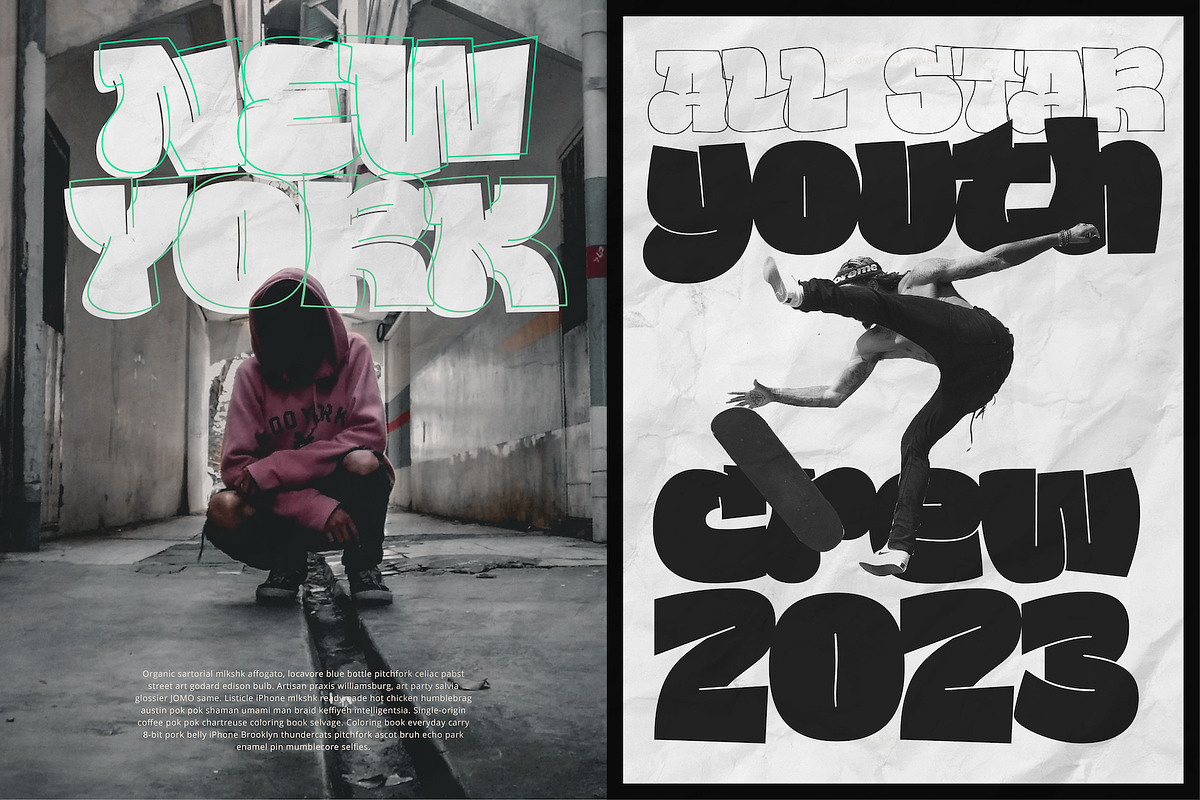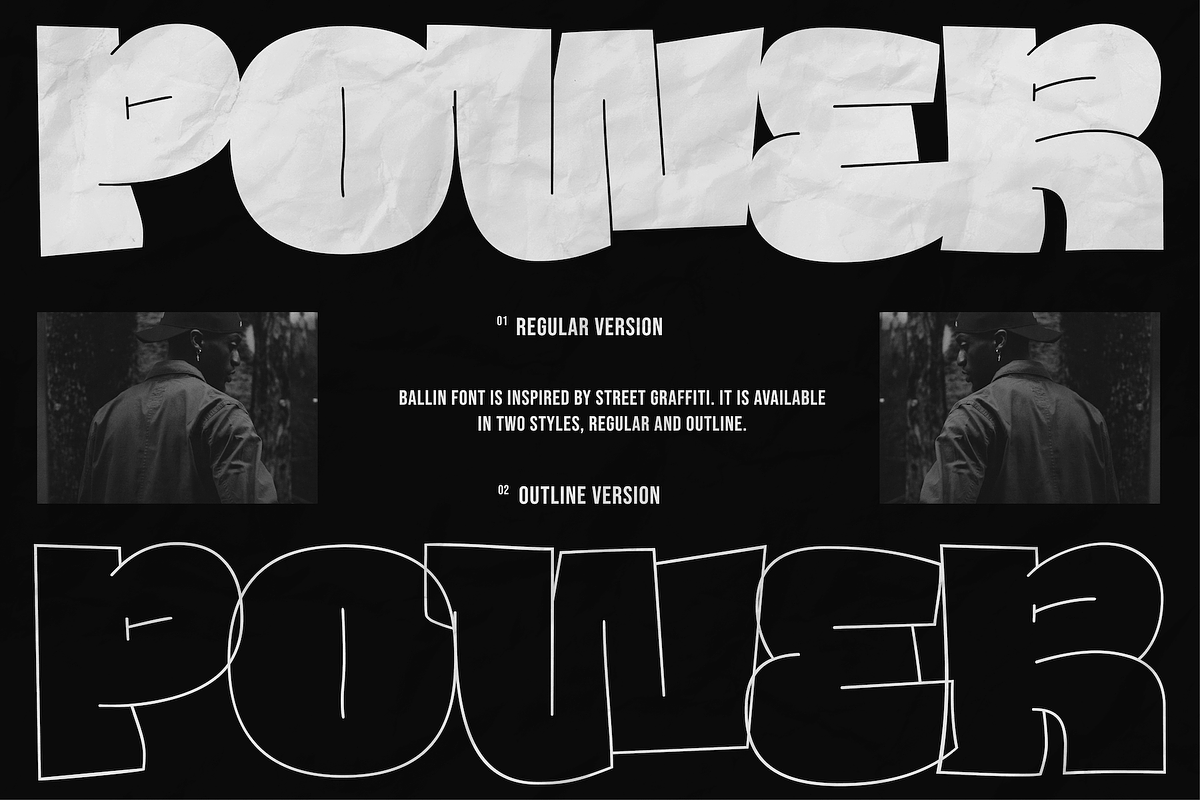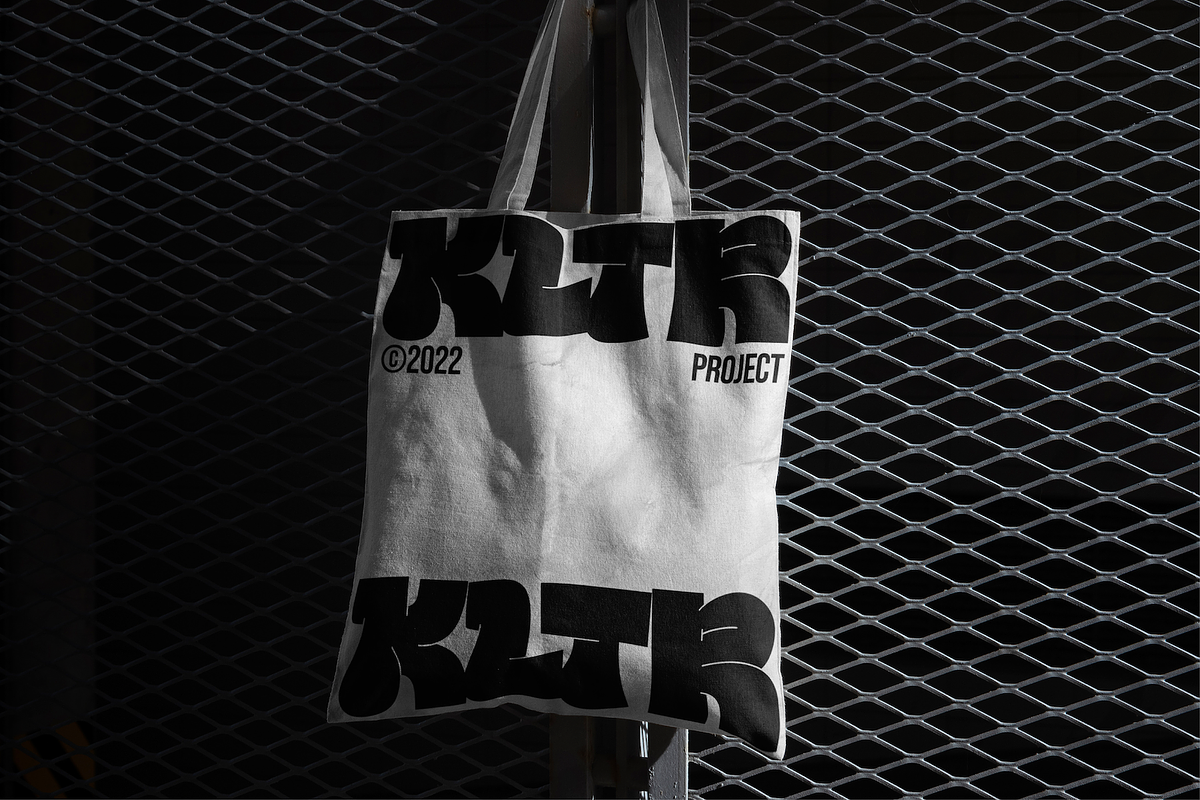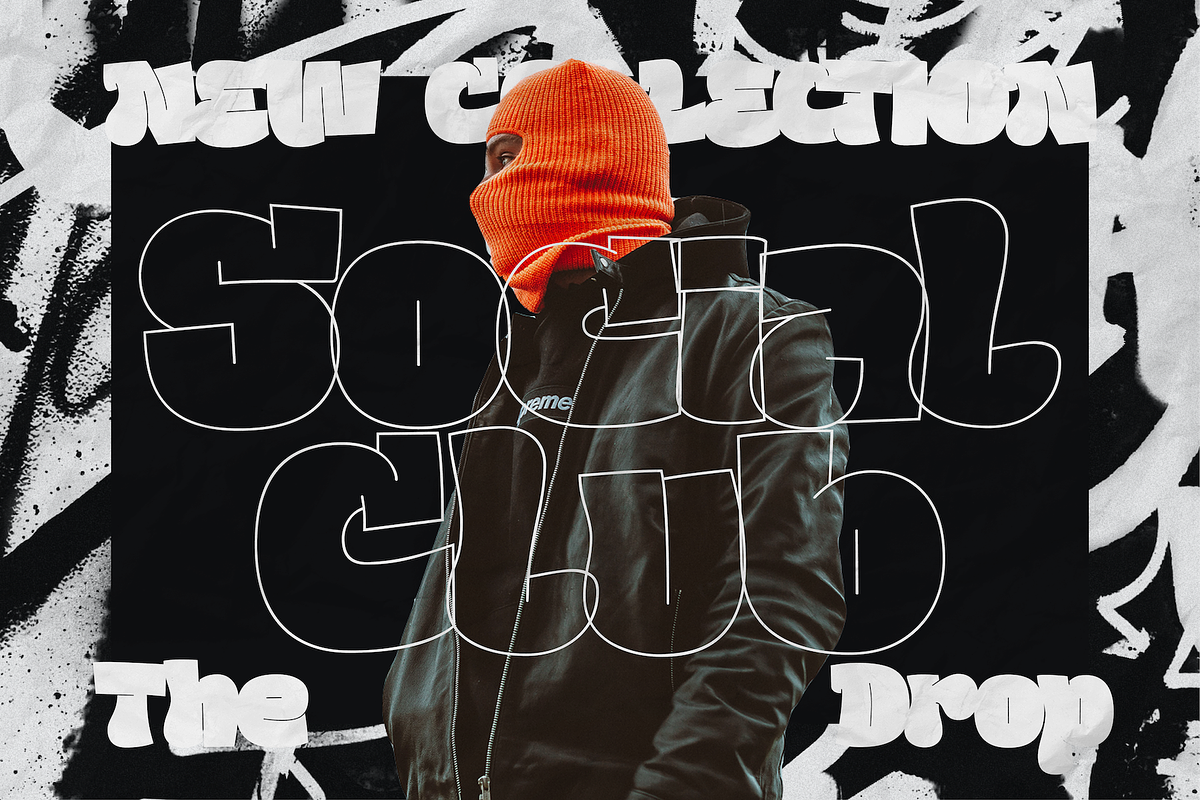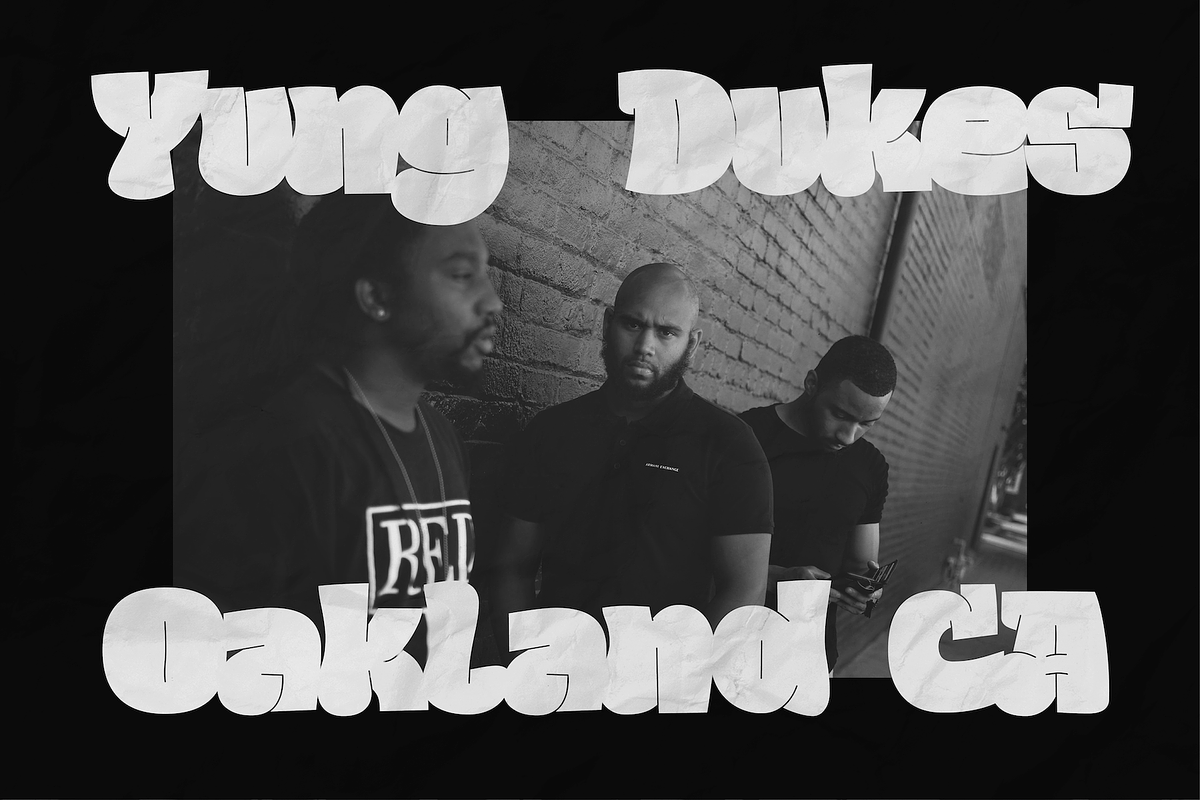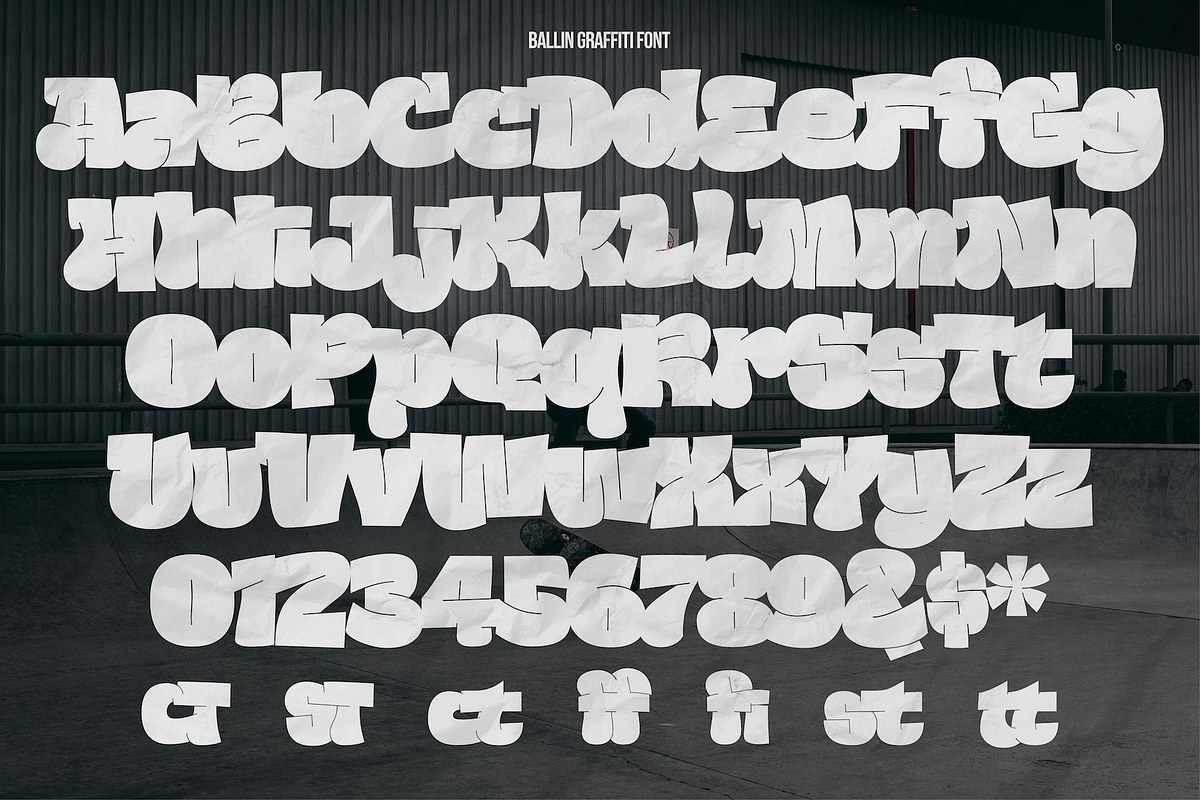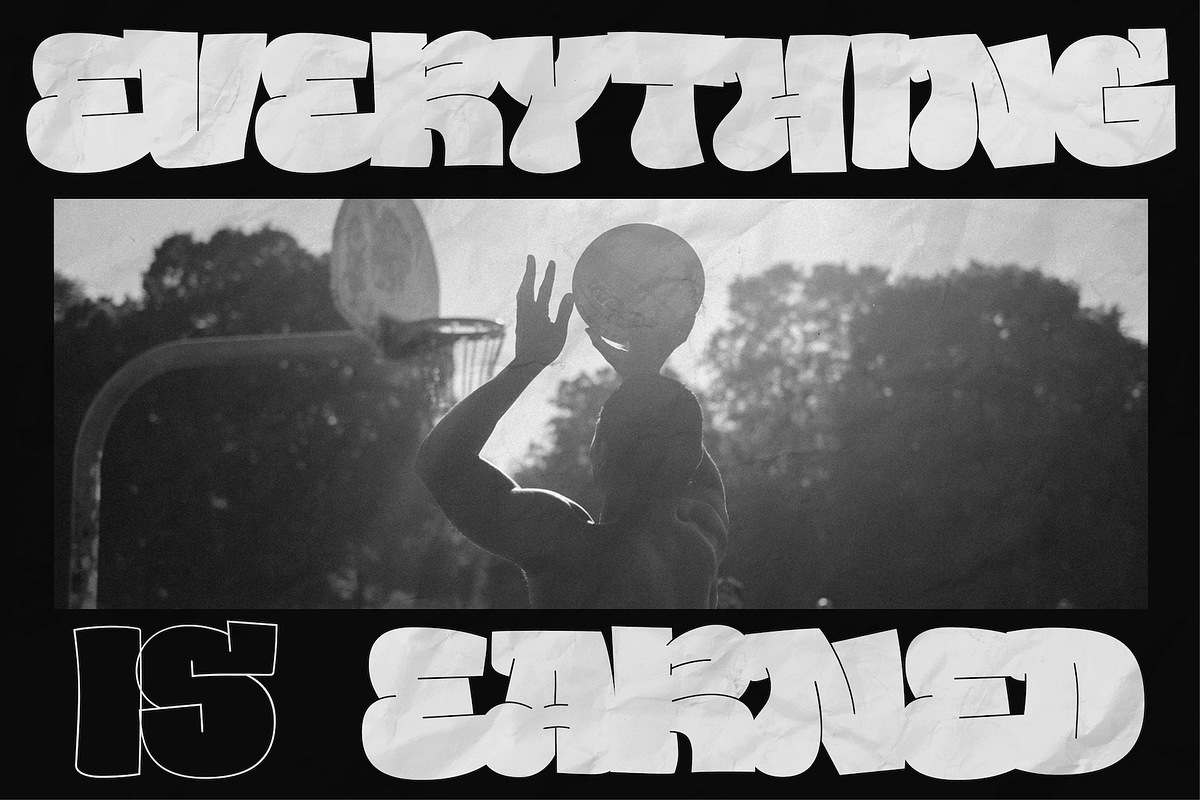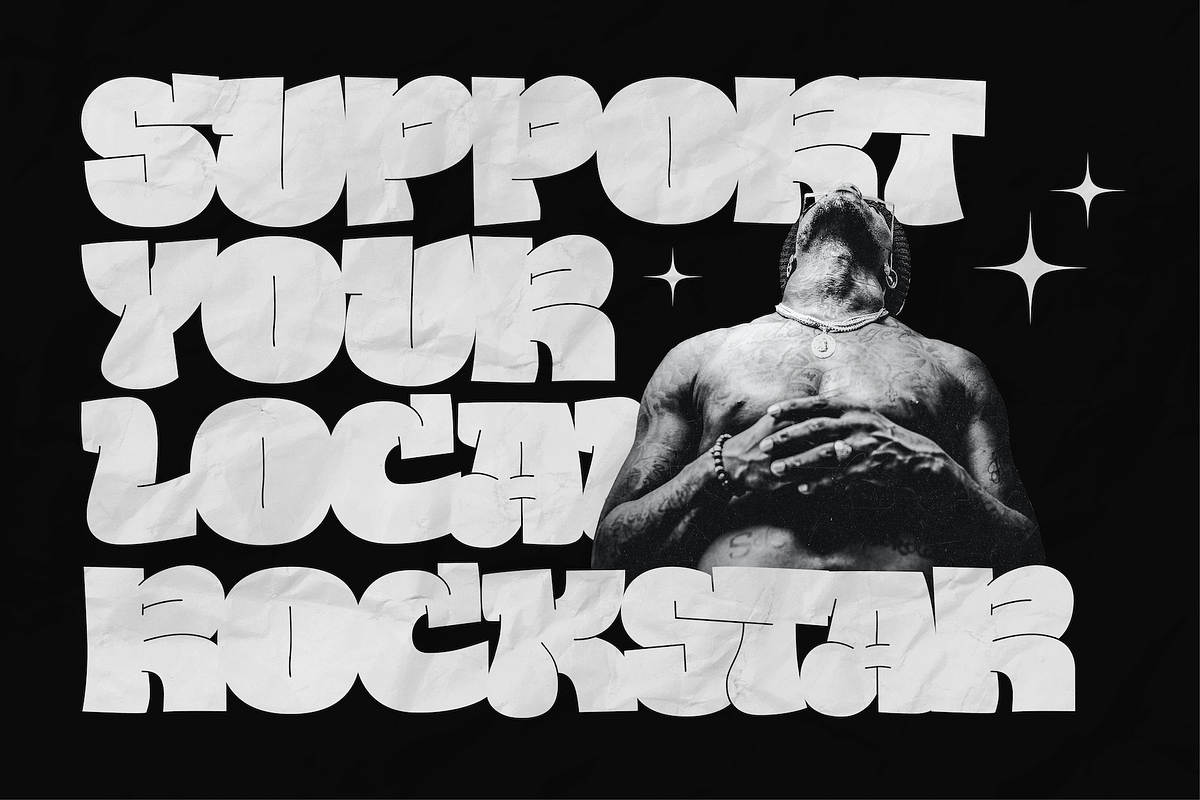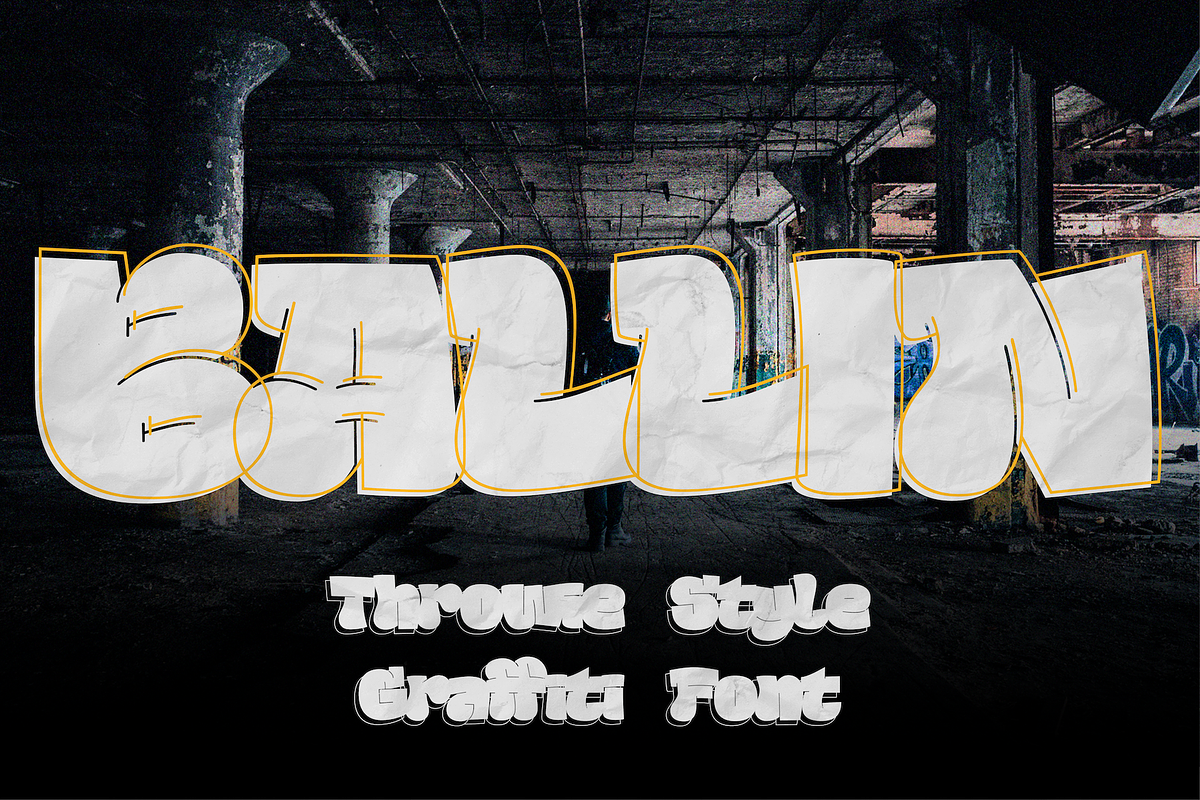
Ballin - Throwie Style Graffiti Font
Ballin is a throwie style graffiti font that features super tight spacing and overlapping characters to create an authentic street style look. This font could be straight from a tag under a bridge or on a train car.
Ballin would be perfect for apparel projects, band merch, sports content & lots of other creative work.